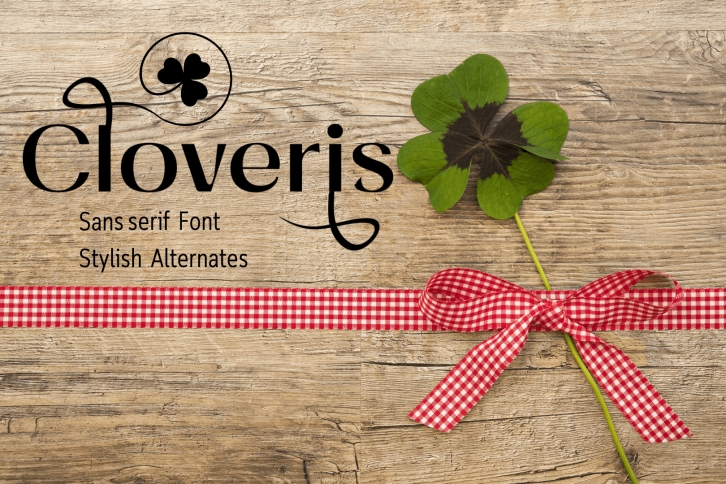
Cloveris is a fun and incredibly unique sans serif font. Contemporary and fresh, it is perfect for any design you wish to create, especially for your Irish and Saint Patrick’s day creations.